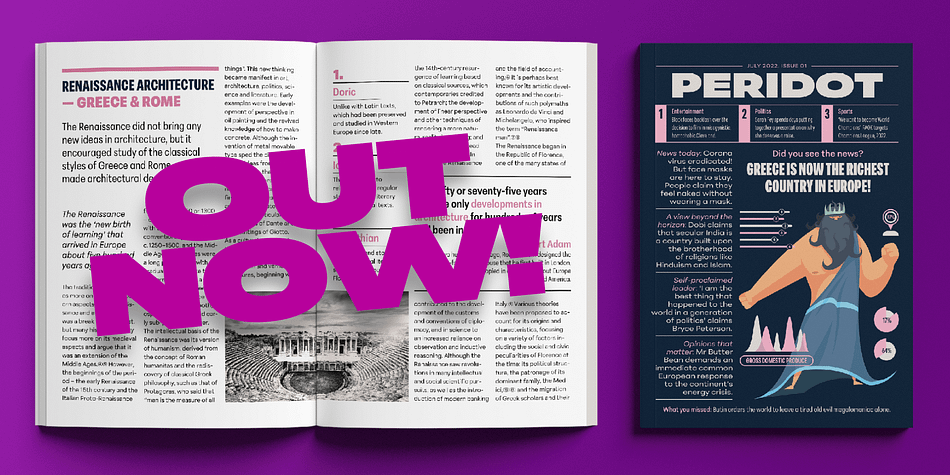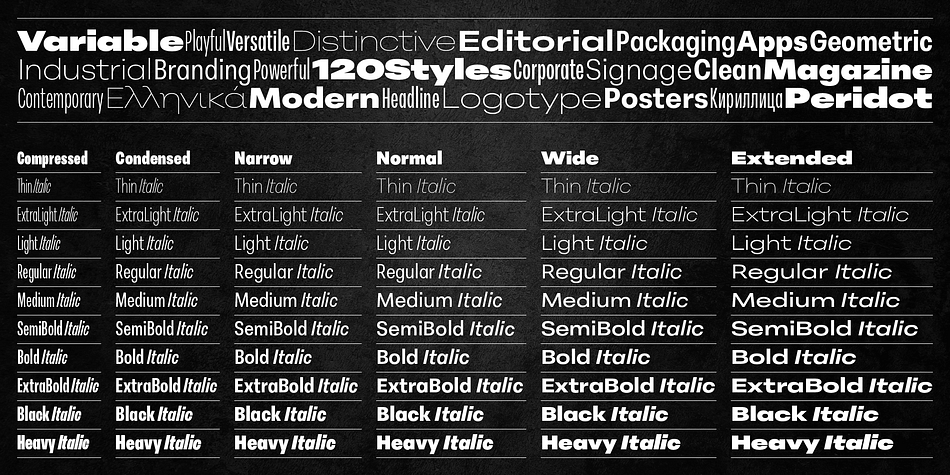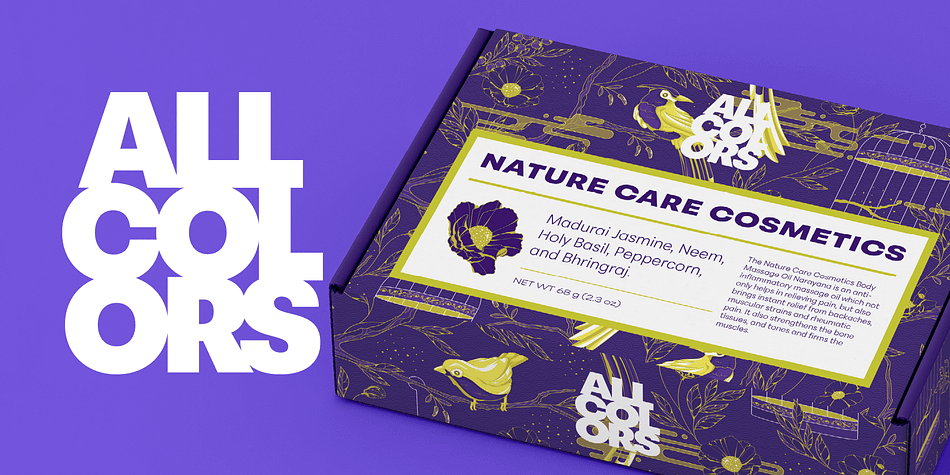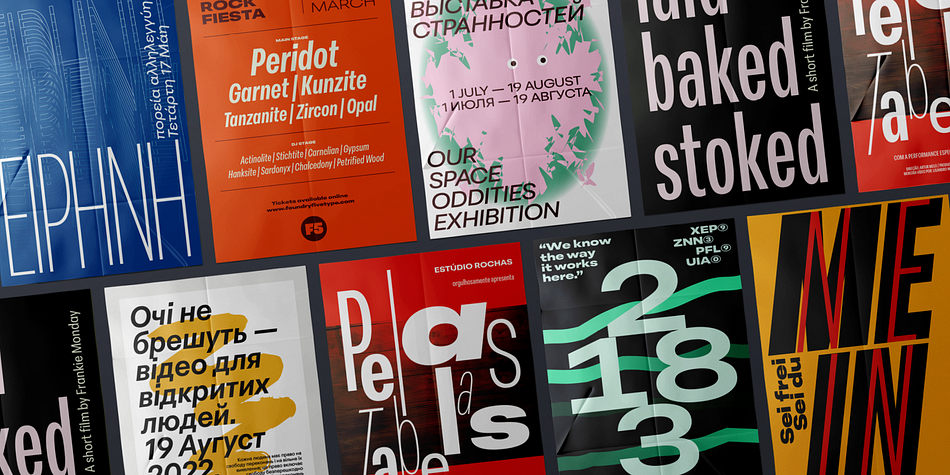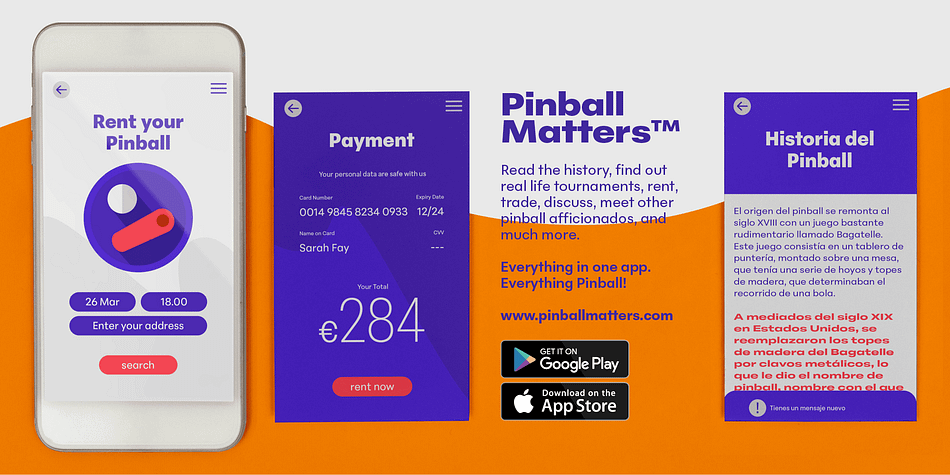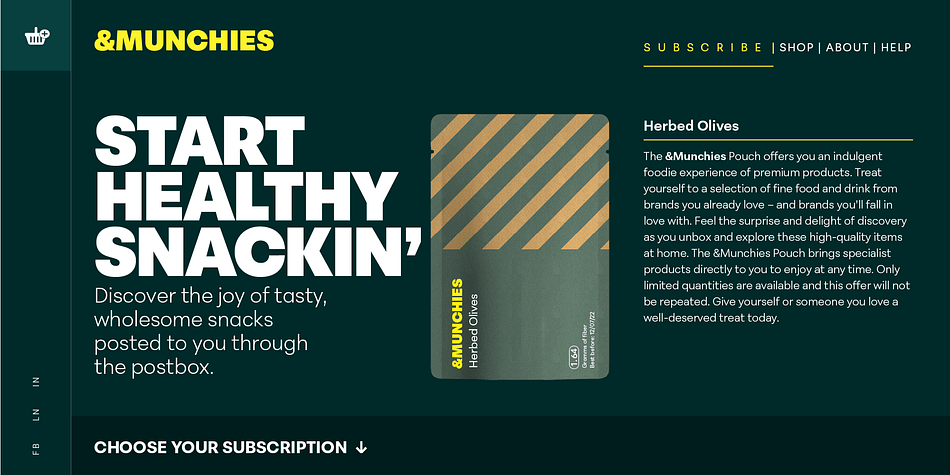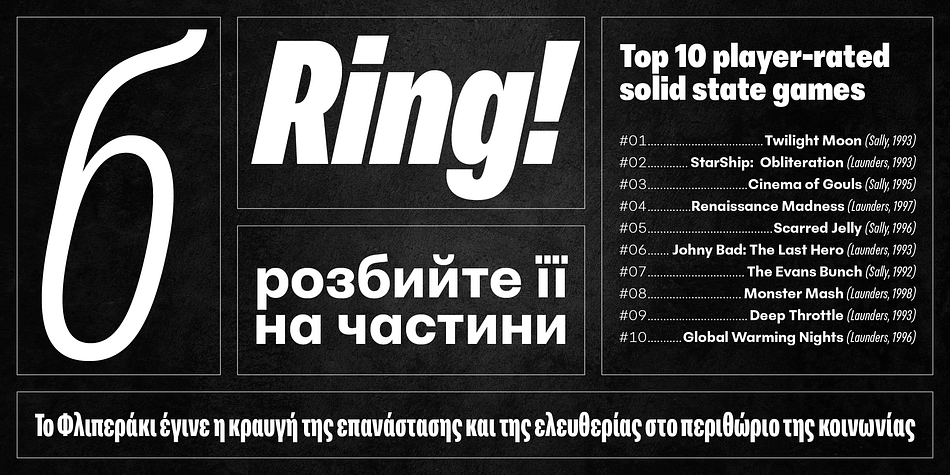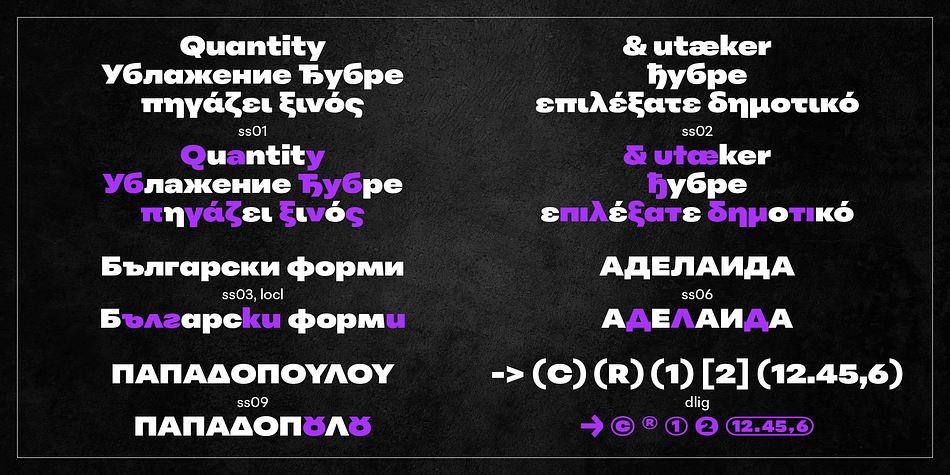
Peridot PE
Designed by Pria Ravichandran and Kostas Bartsokas, Peridot PE is a sans serif font family. This typeface has one hundred and twenty-seven styles and was published by Foundry5.
Introducing Peridot – a multifaceted sans serif type system by Foundry5. We burnt the midnight oil and sweated over minute details to present a high quality 10 weight family with slanted italics in 6 widths and the coveted variable format! Peridot is loaded with personality; try the different stylistic variants to change the typographic tone depending on your mood. The combination of widths and styles makes Peridot an exciting typographic palette for the discerning designer.
Peridot currently supports three scripts – Latin, Greek, and Cyrillic – covering over 370 languages. It includes all required localised variants, tabular numerals and currencies, fractions, clever discretionary ligatures and many more features. Peridot performs in varied environments – from branding, display, corporate use,  editorial, advertising, poster, web, screen usage etc. Think of any other use case as well, and Peridot will perform.